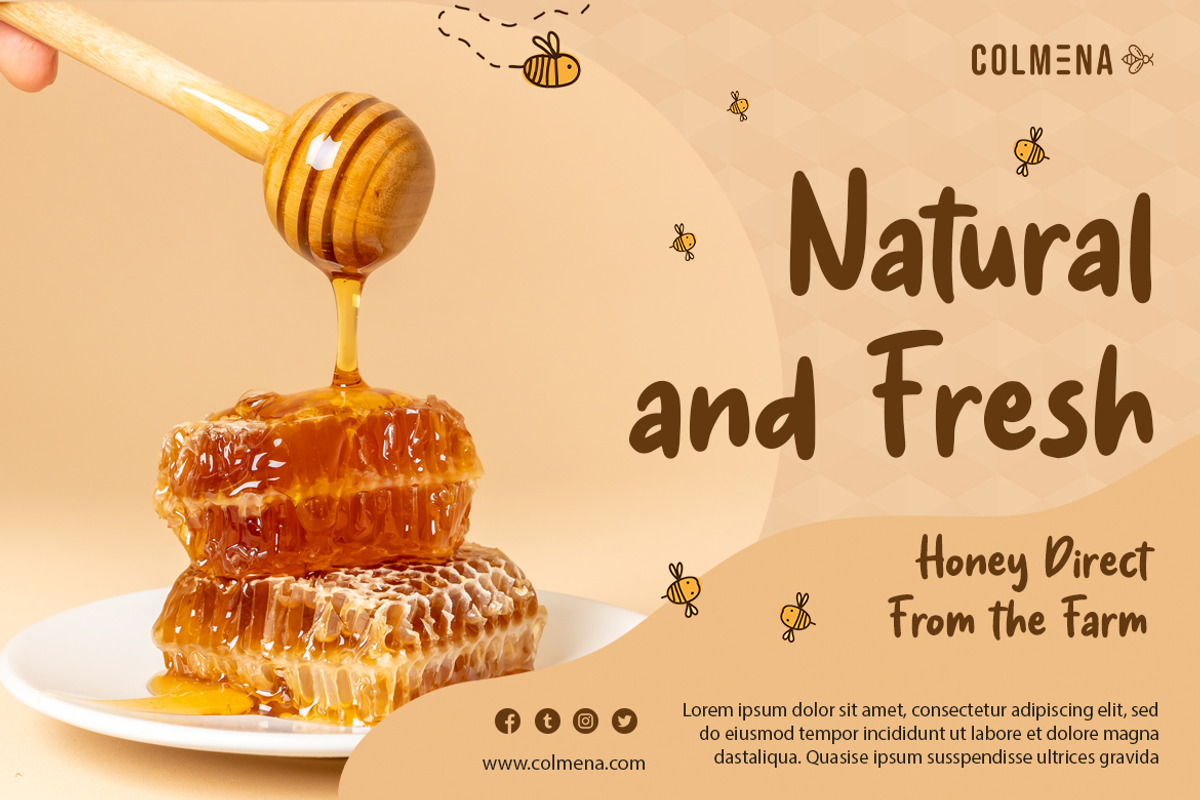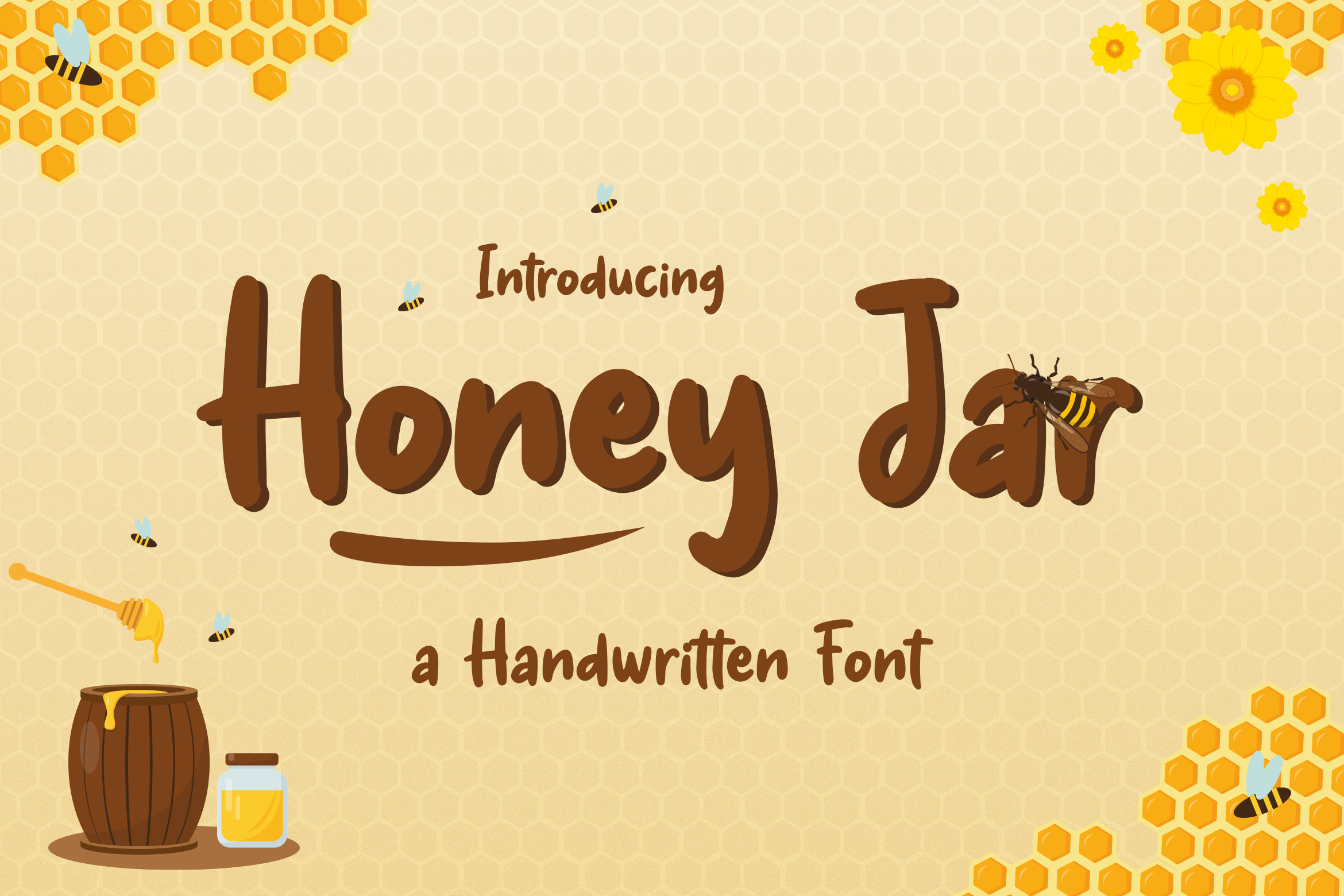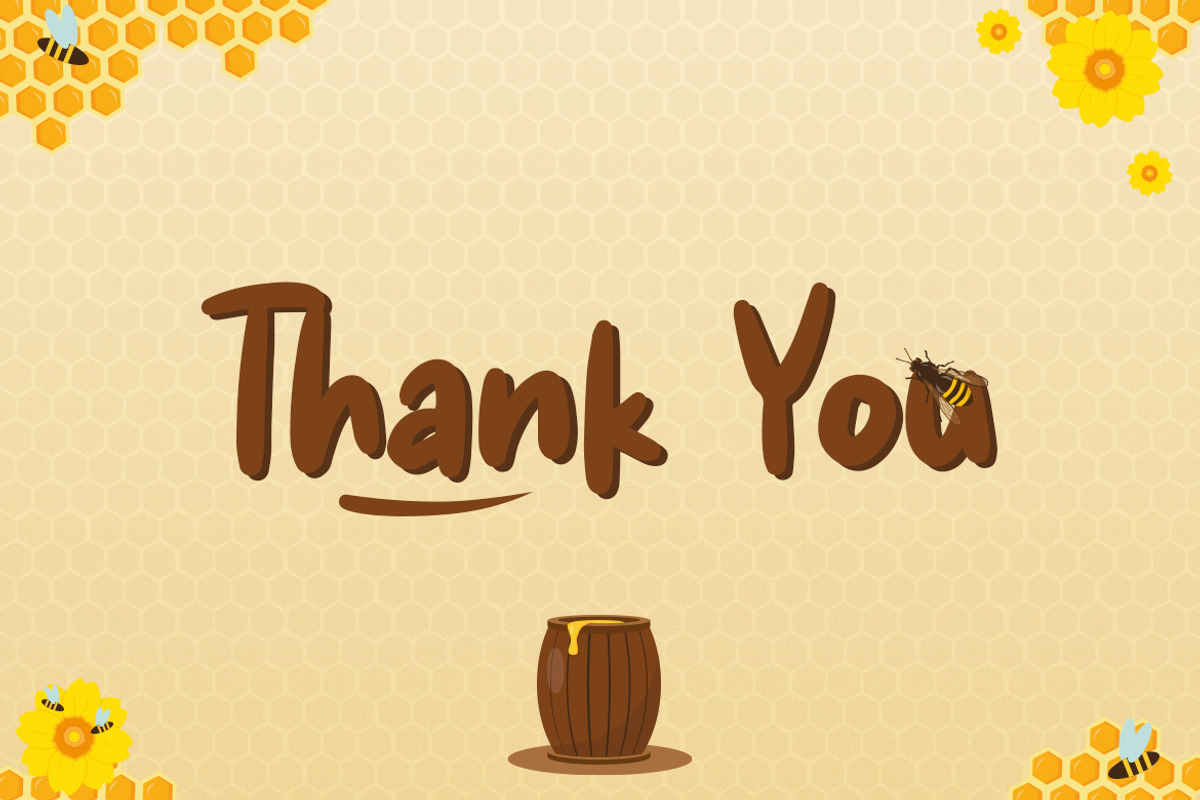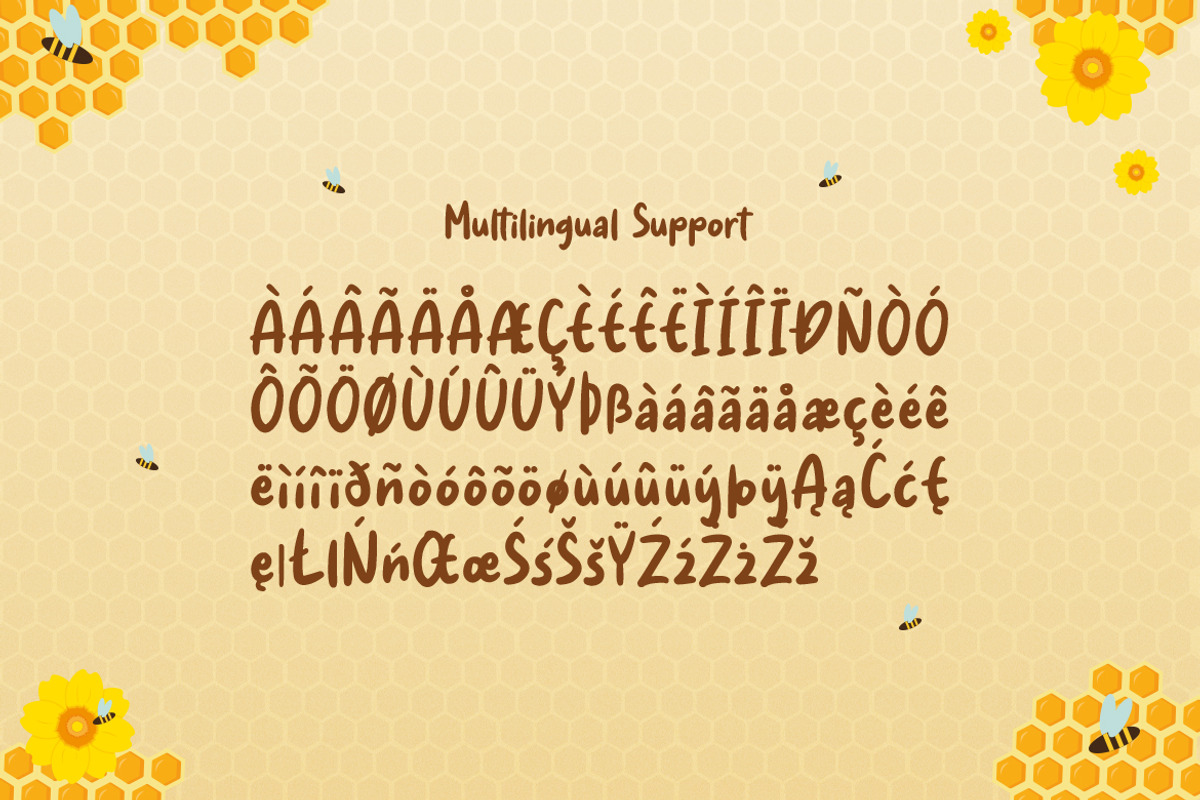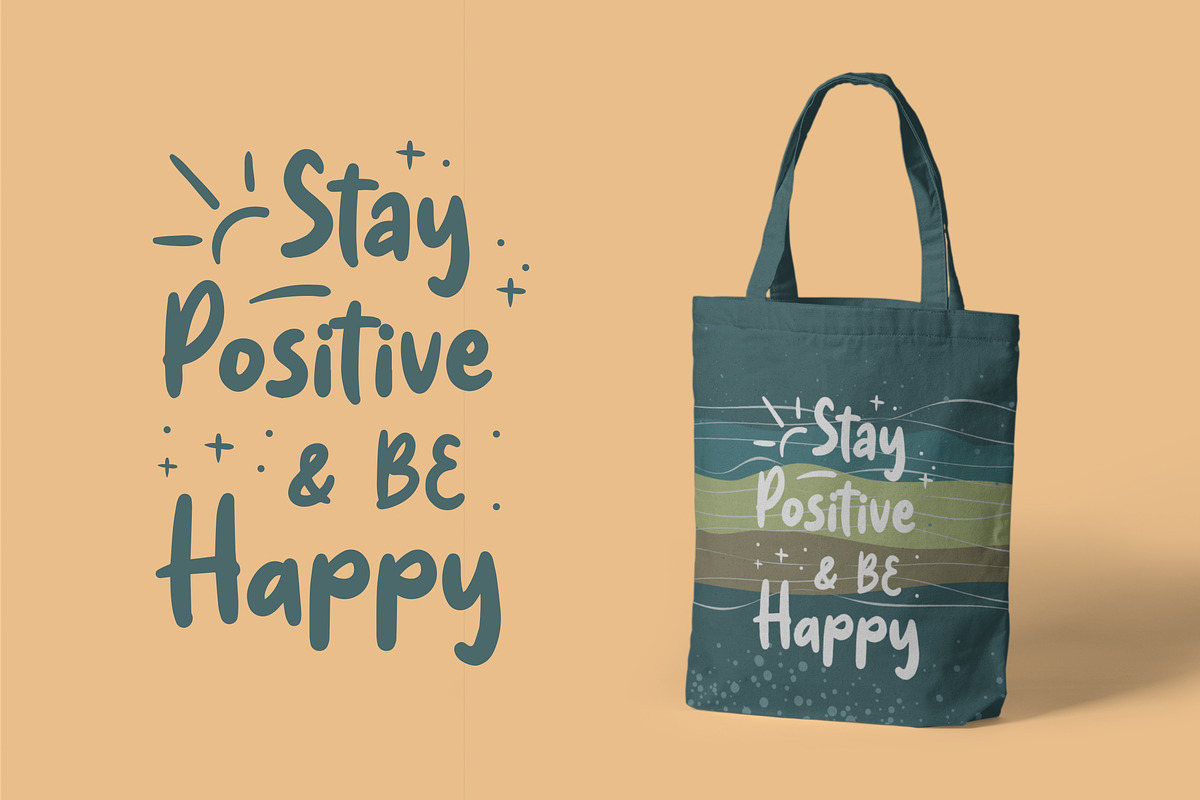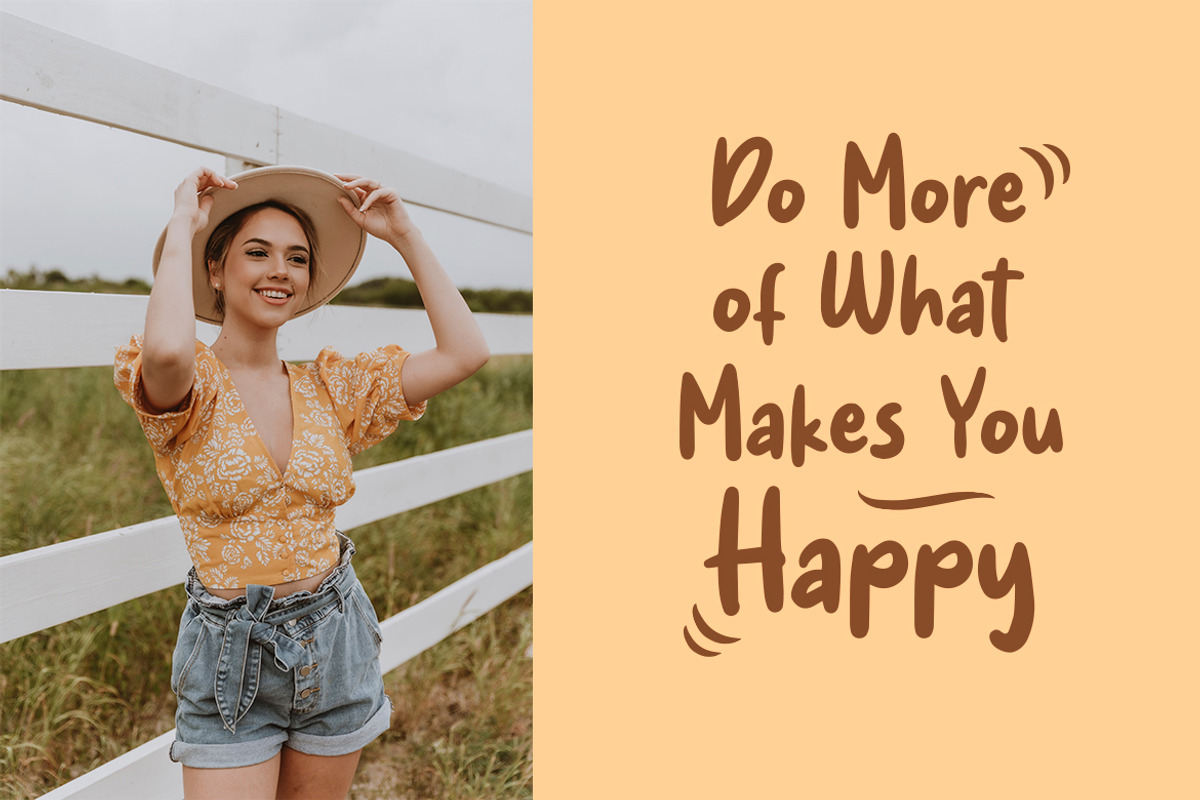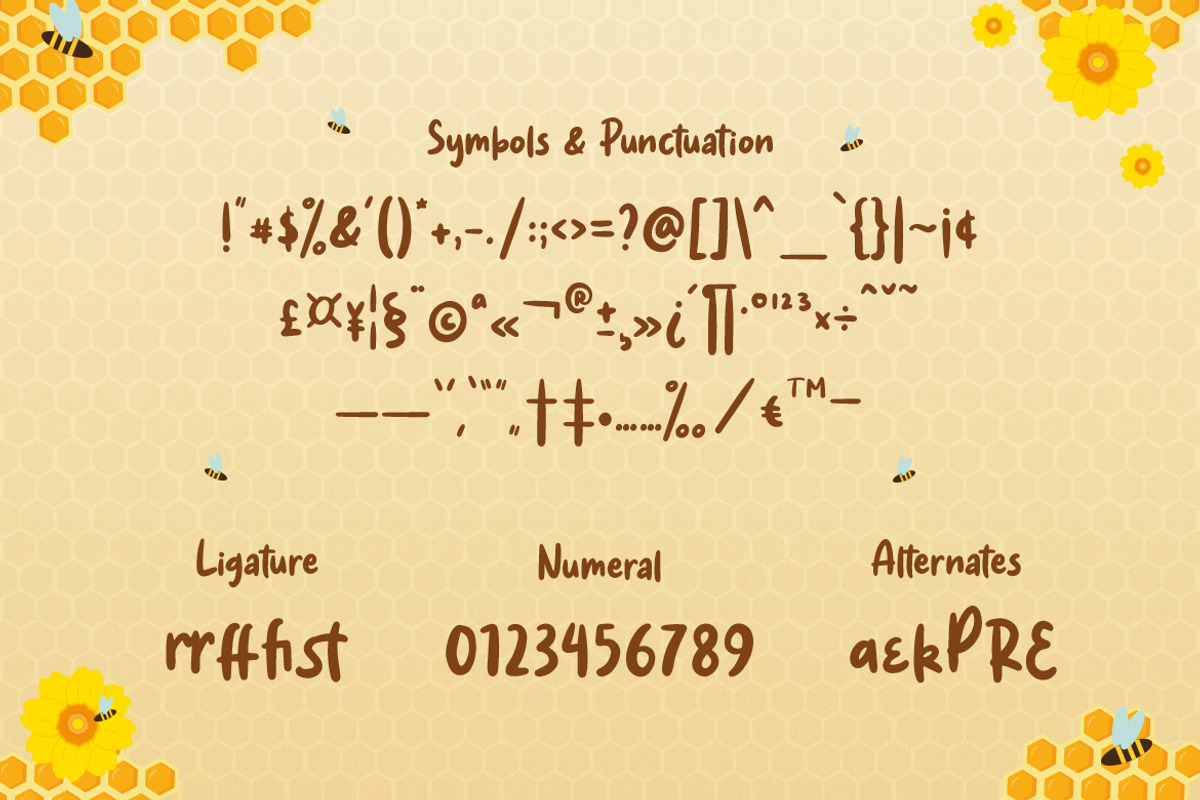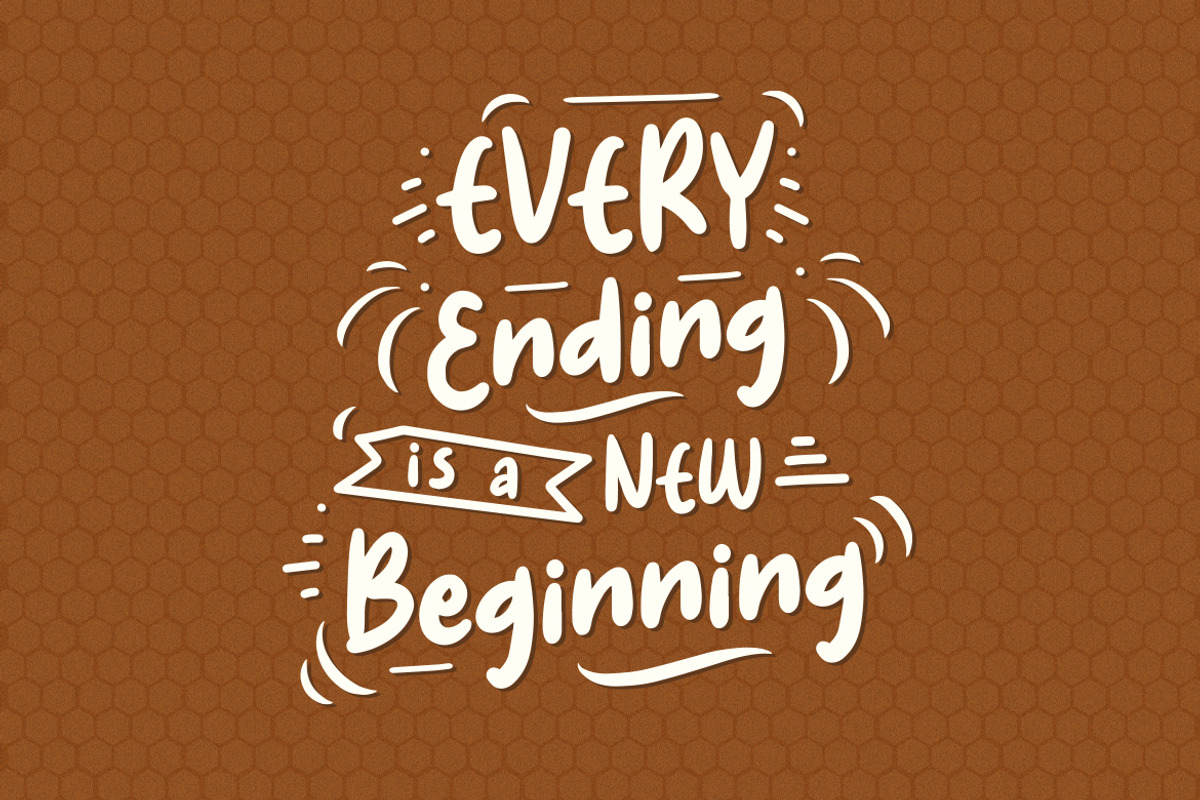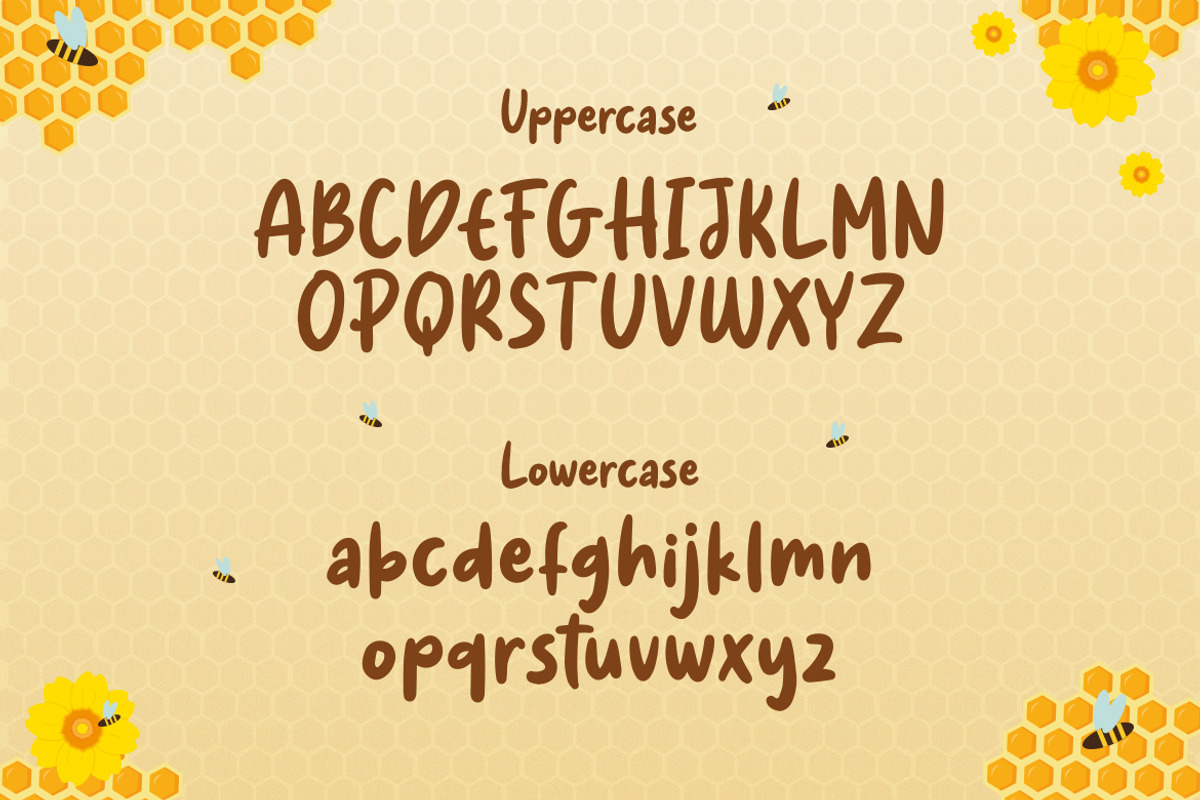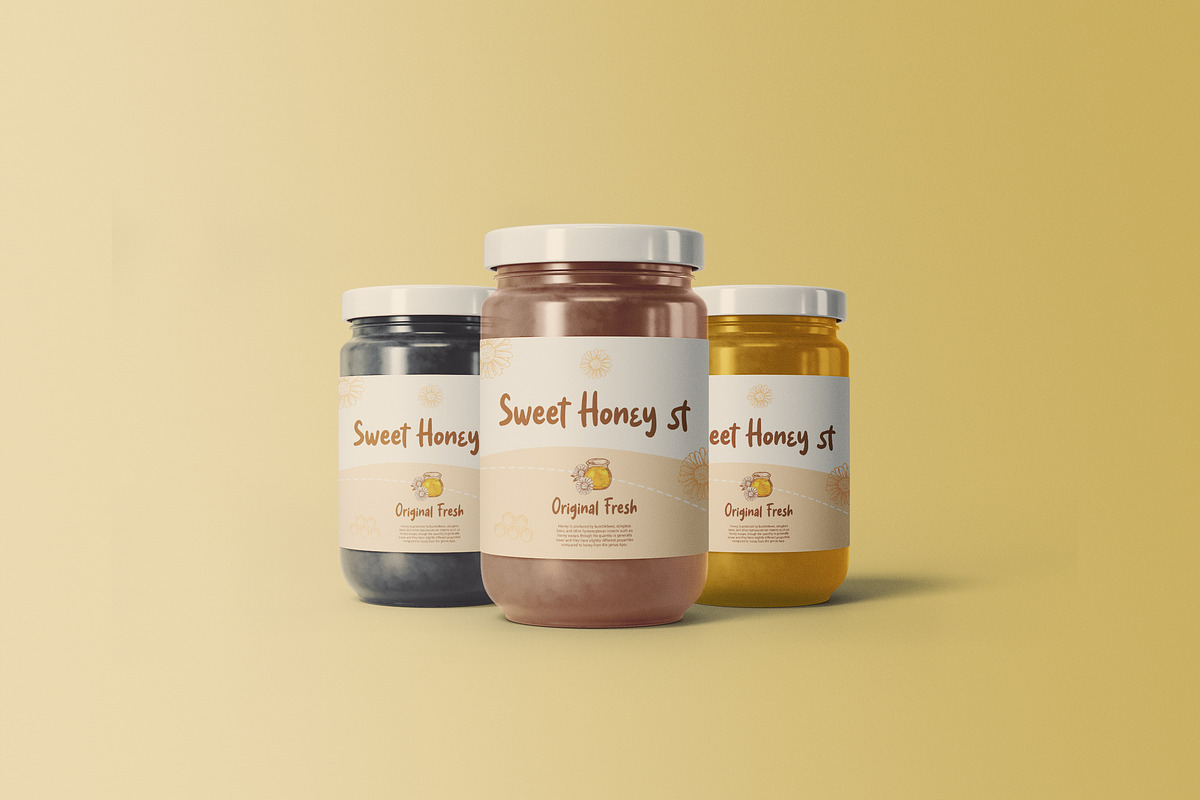
Honey Jar - a Handwritten Font
Honey Jar is a bold and modern display font, carefully handcrafted to become a true favorite. This font will look outstanding in any context, whether it’s being used on busy backgrounds or as a standalone headline, especially on natural farm theme !
- Symbols & Punctuation
- Numeral